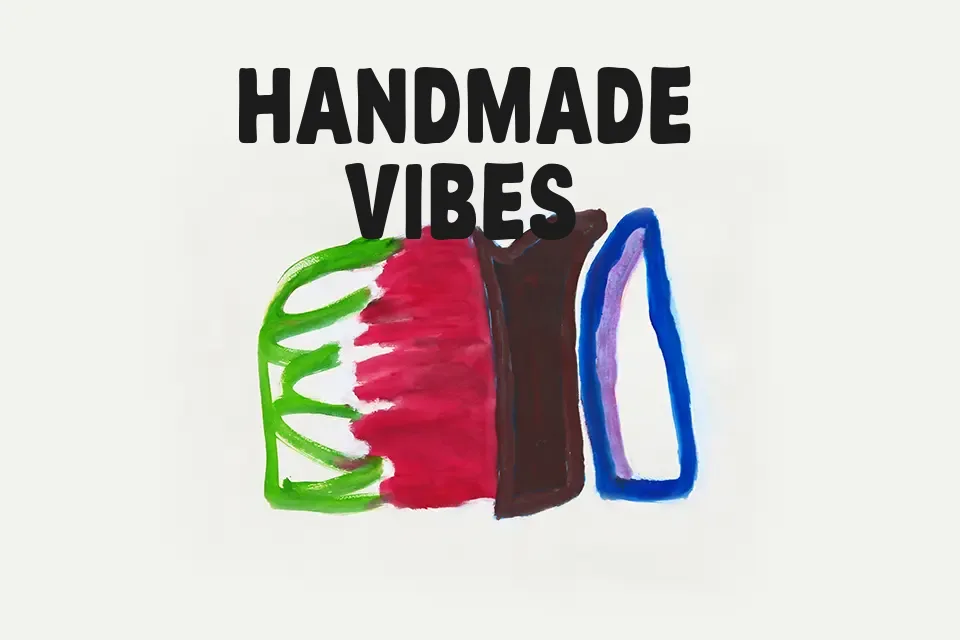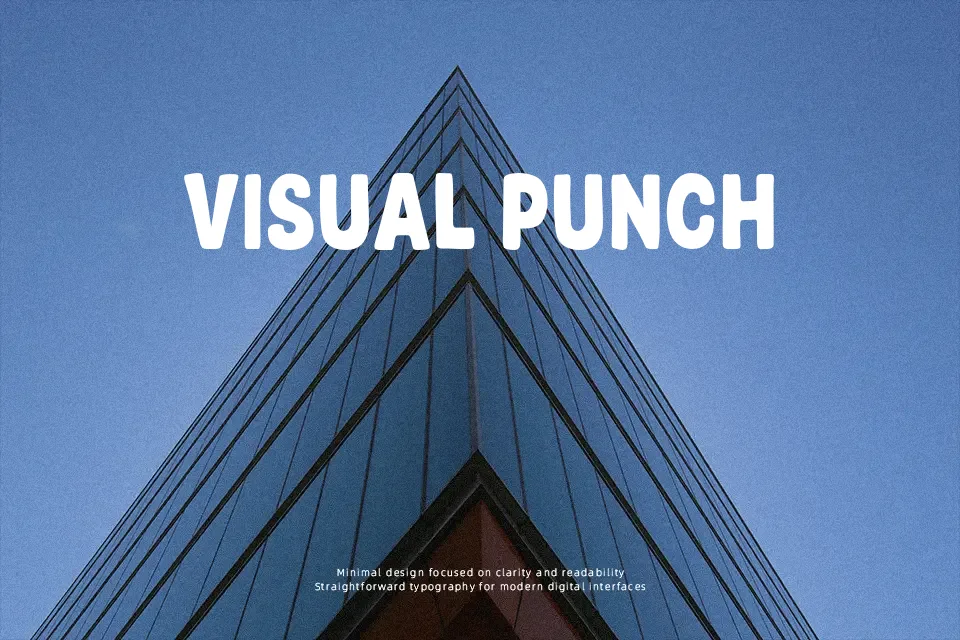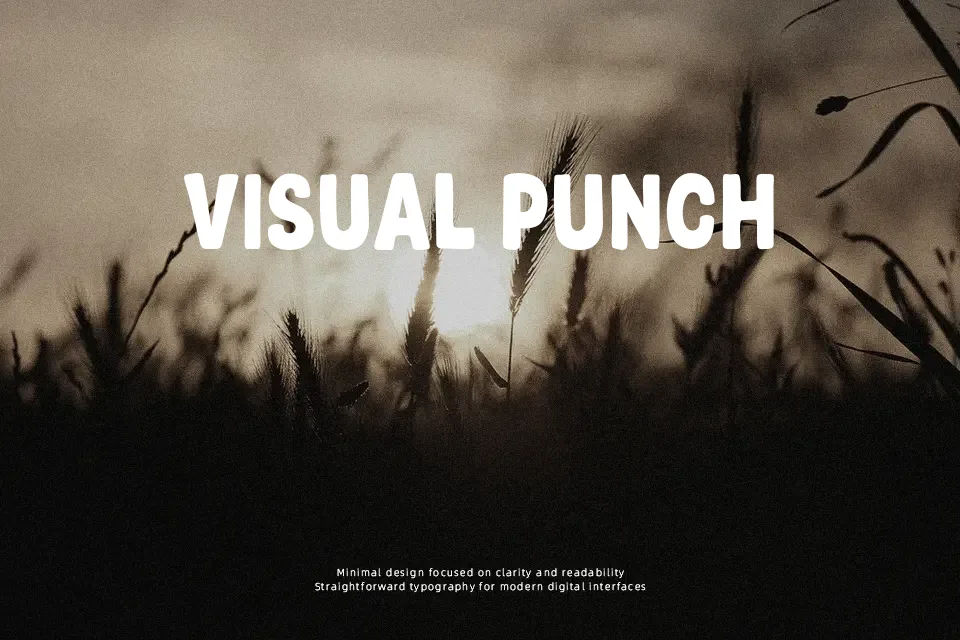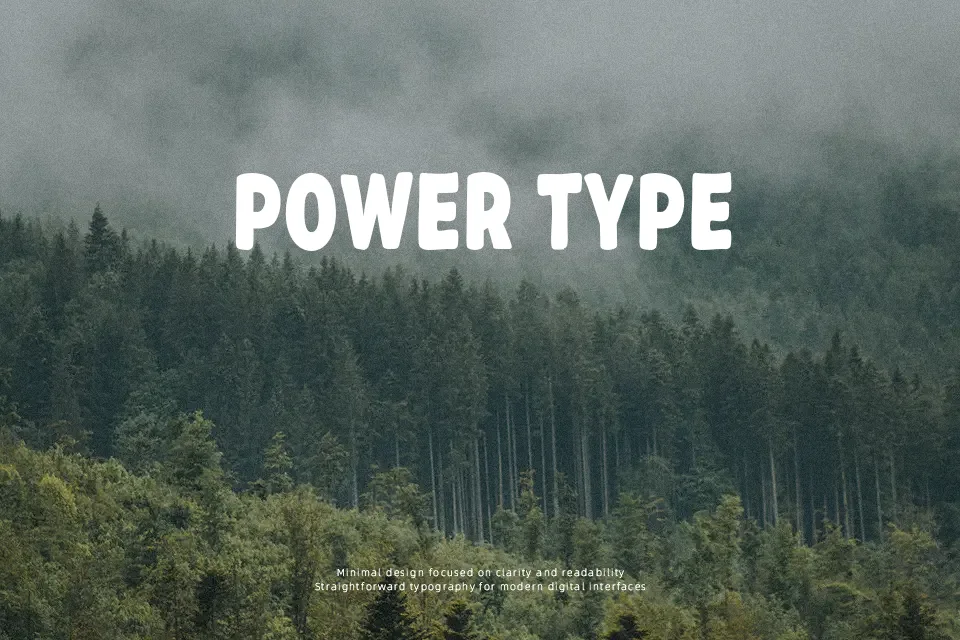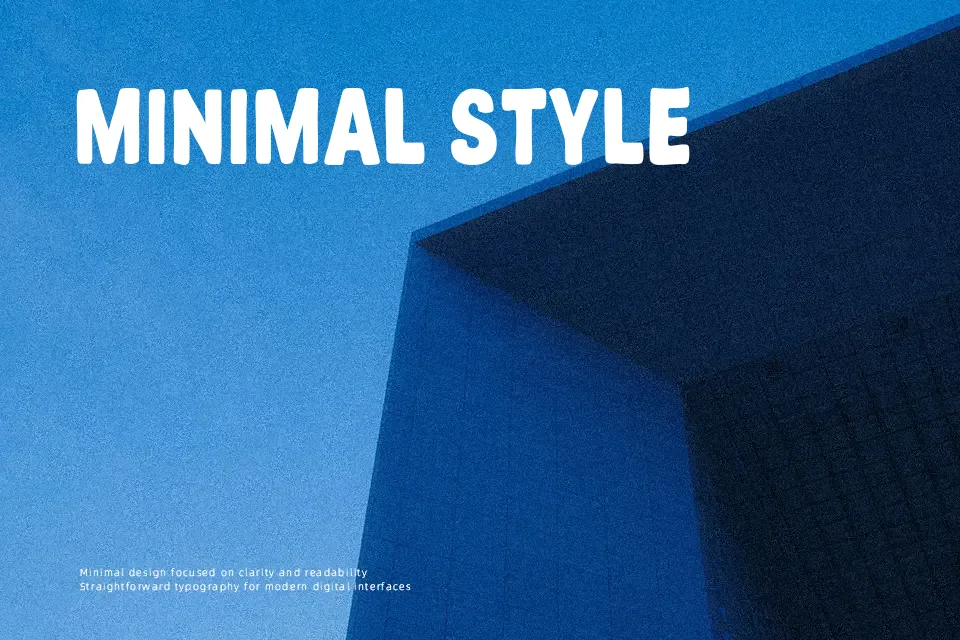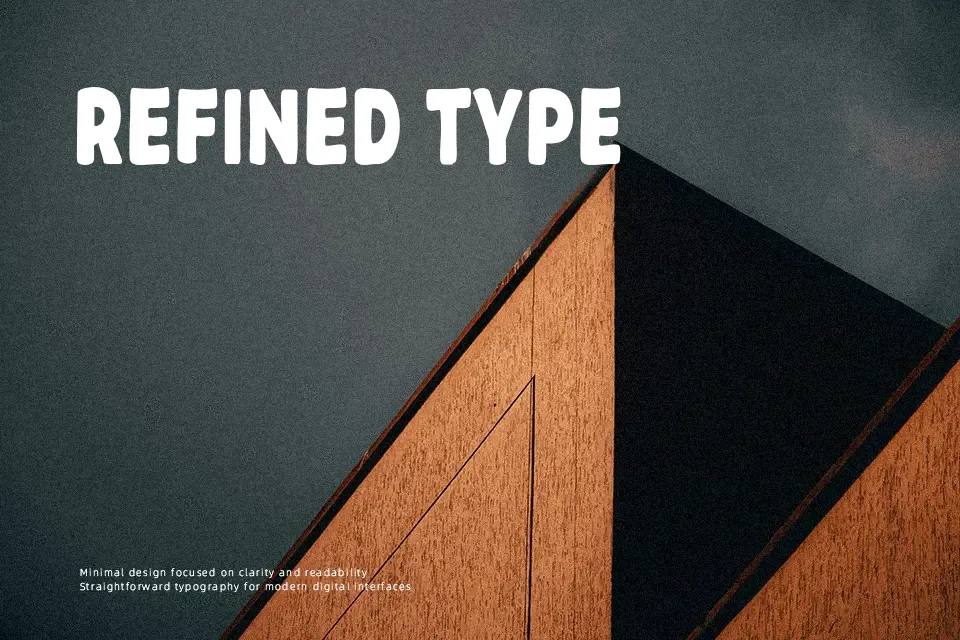
Persona Aura Font
Persona Aura Font works best in large display settings where its heavy, condensed shapes can carry a headline. The letterforms use thick, rounded strokes, compact proportions, and a lively comic rhythm that gives short text an animated appearance. Spacing stays close enough to create a dense visual block while individual characters remain distinguishable at larger sizes. It is a practical choice for posters, product labels, and youth-oriented graphics that need immediate visibility. The dense structure becomes less comfortable in small text, so it is not a dependable option for extended reading.
Best For: comic book covers,poster headlines,playful product packaging,social media graphics
Perfect for headline, logo, and packaging, with a bold and comic style.